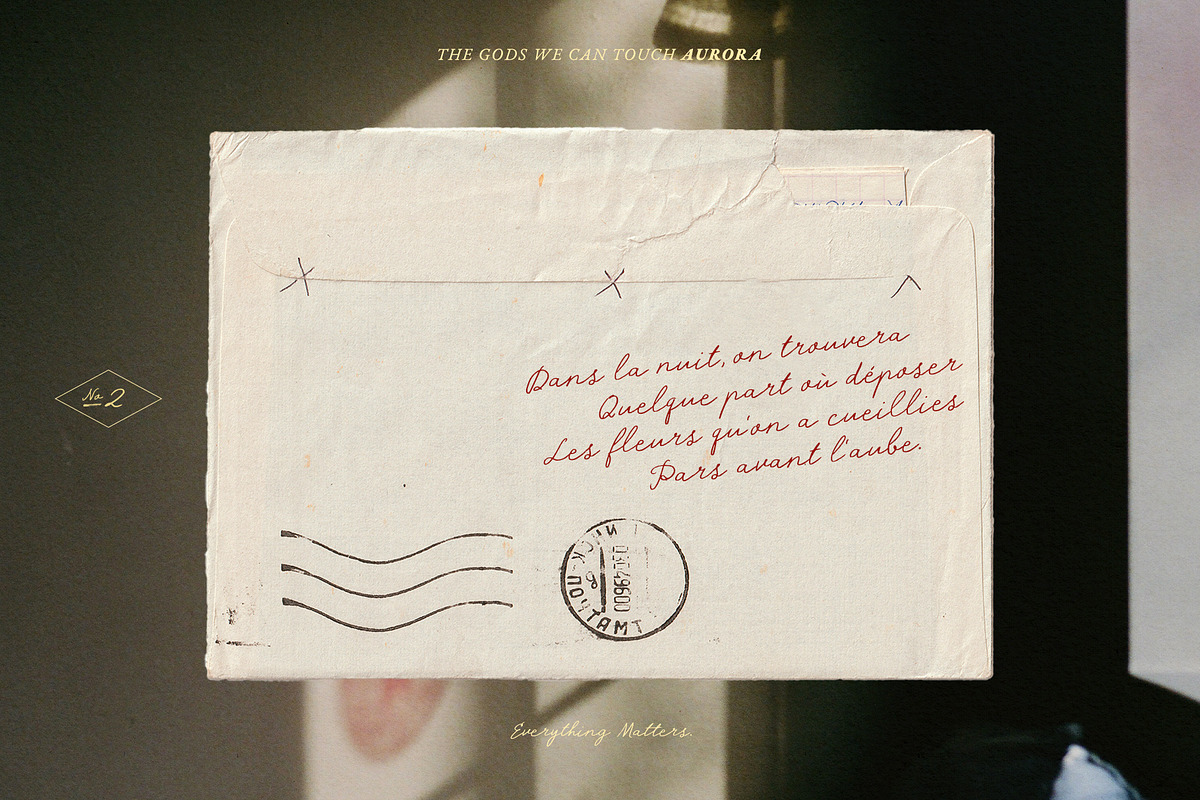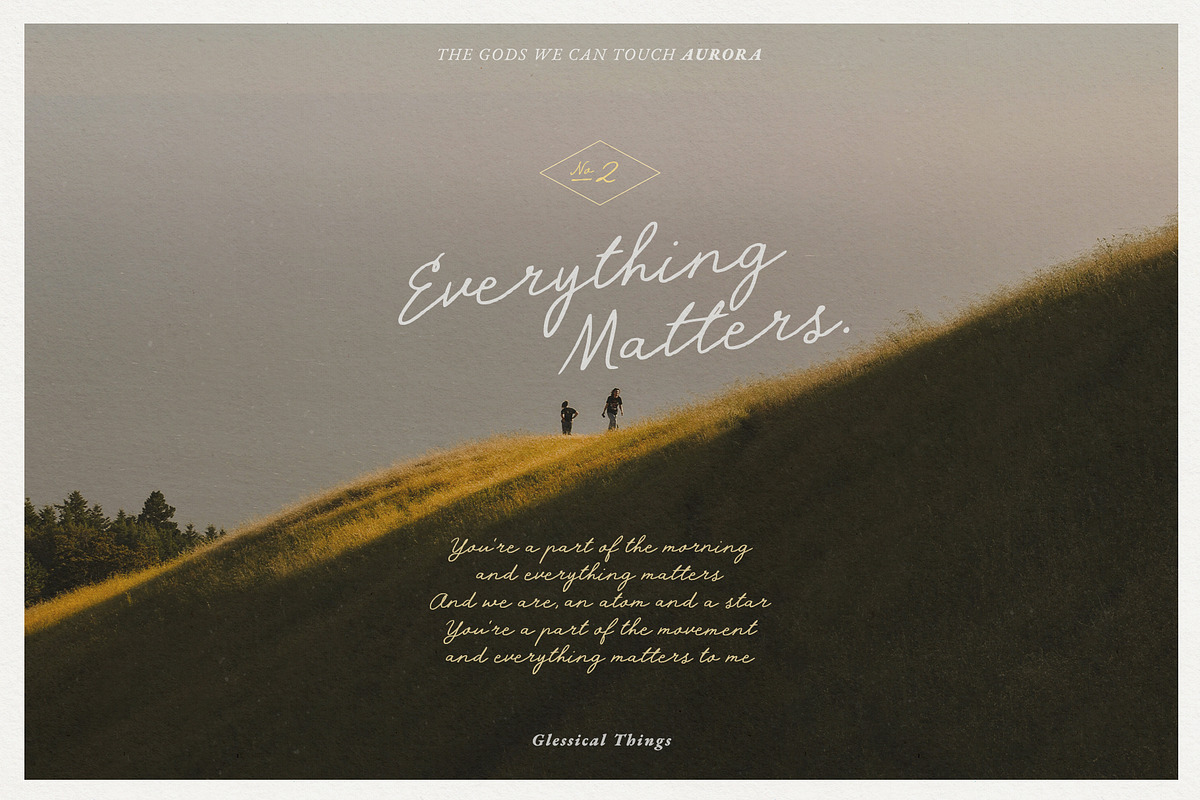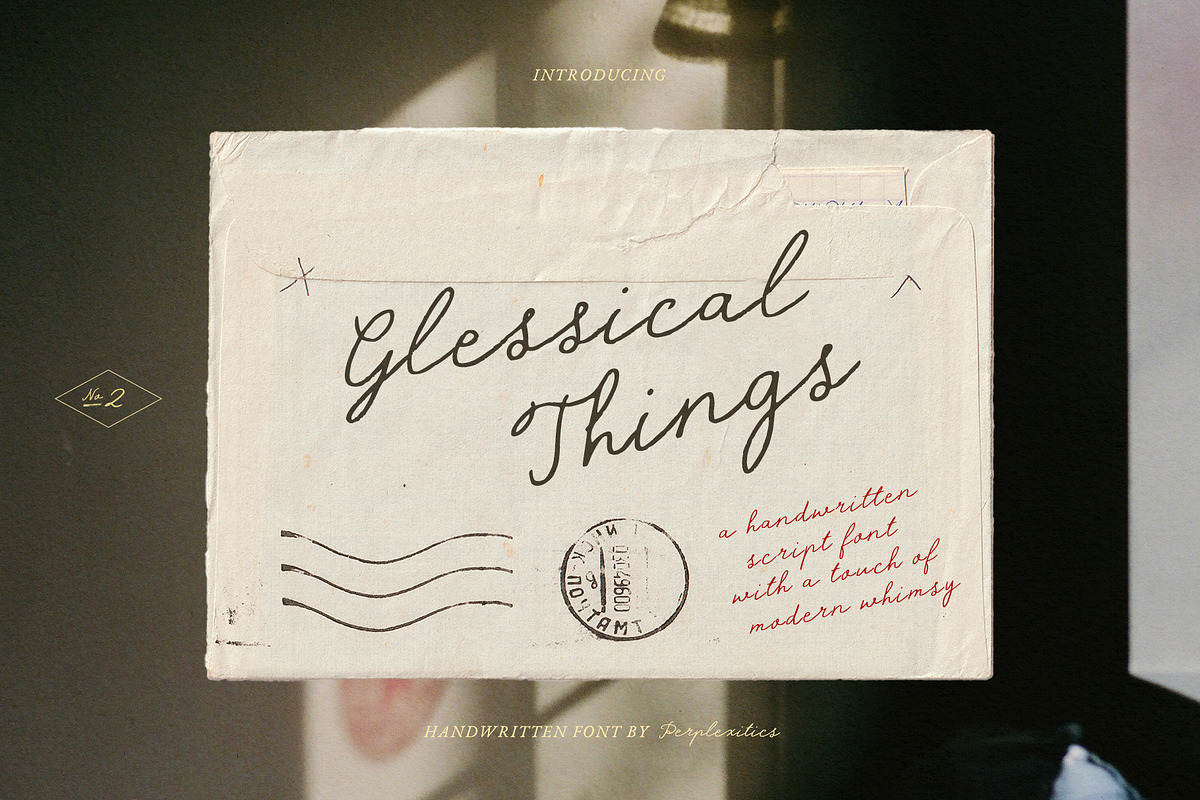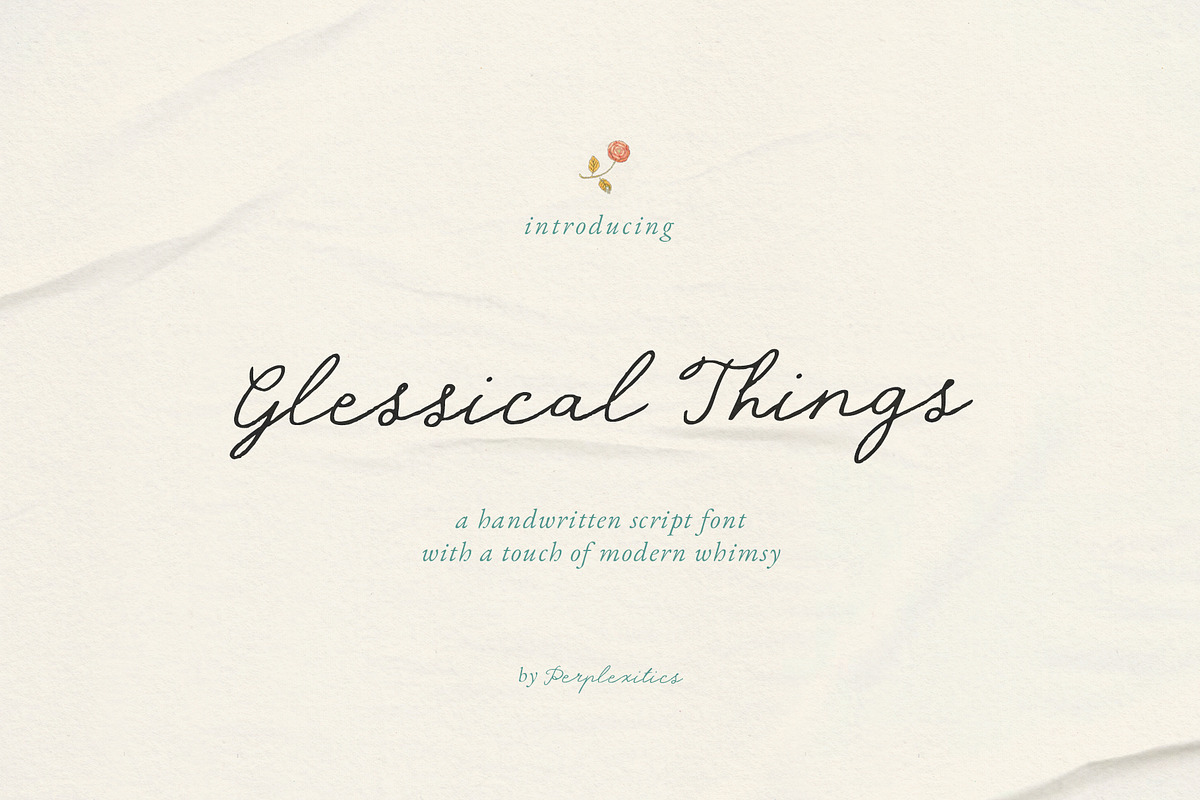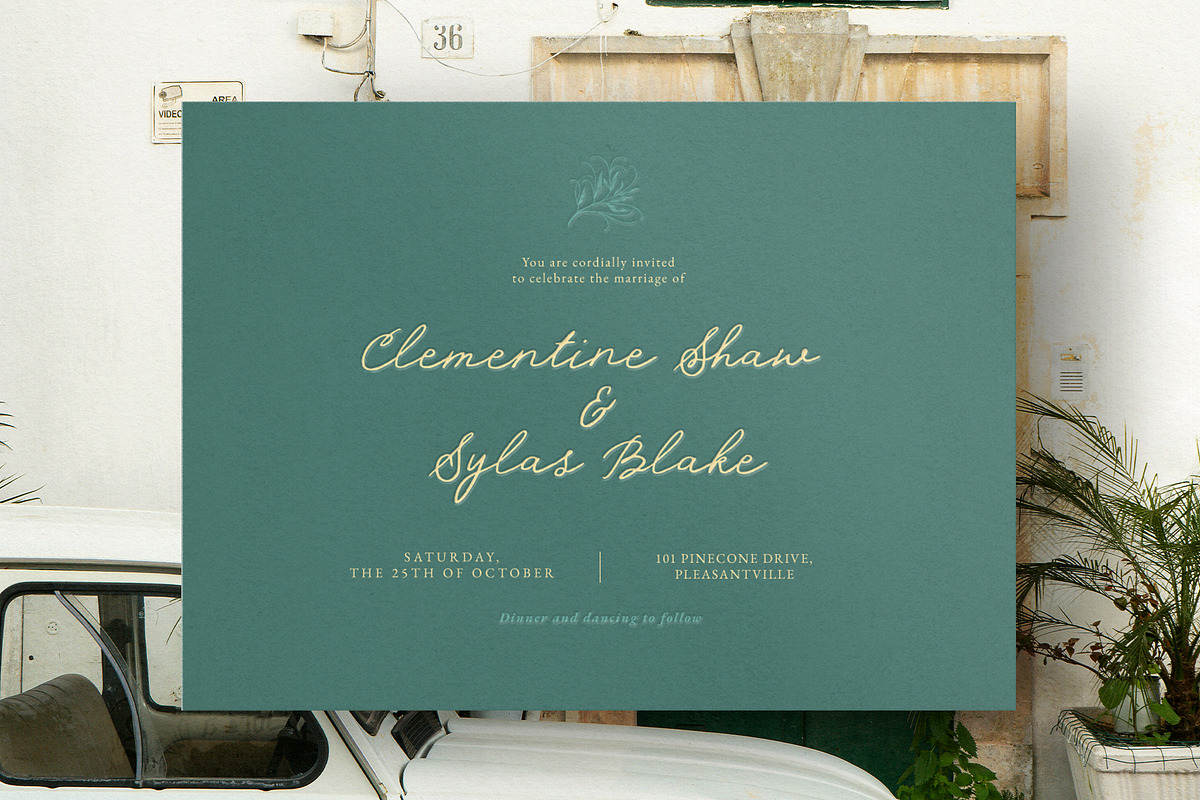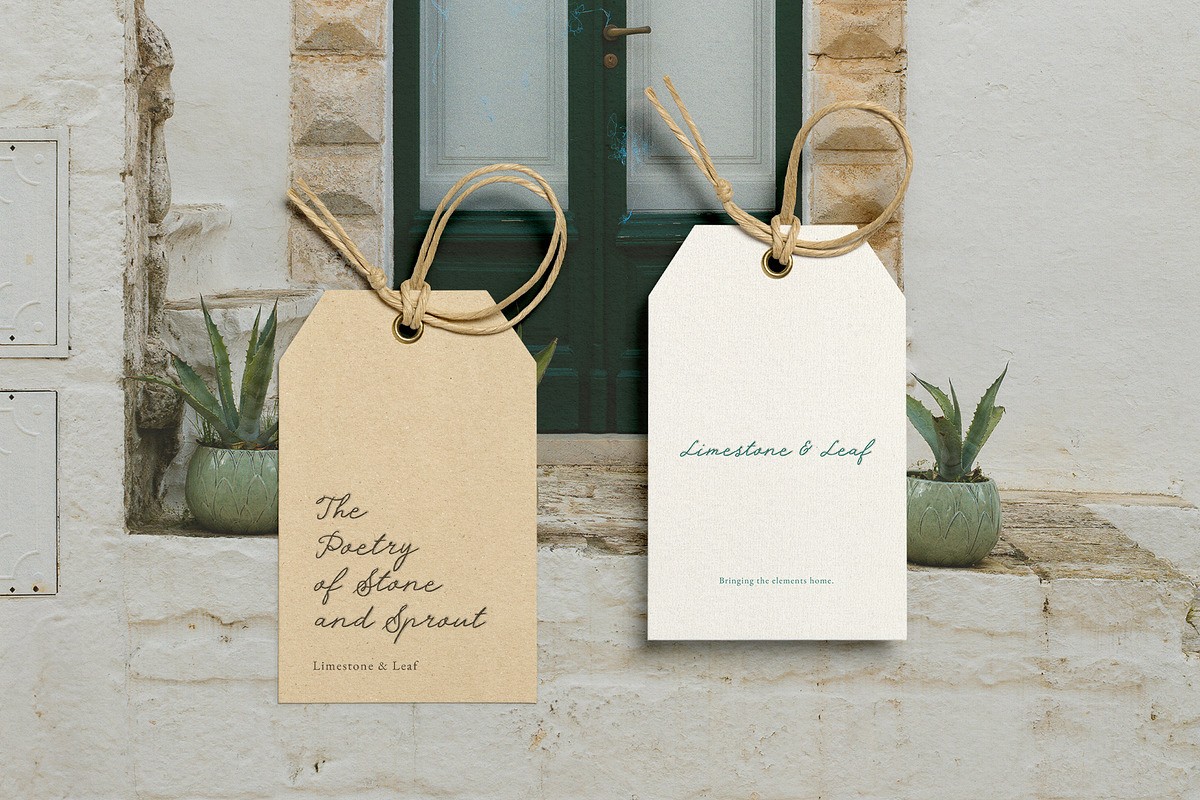
Glessical Things Handwritten Script
Glessical Things is a handwritten script font with a touch of modern whimsy. Each character possesses a unique, hand-drawn quality. Glessical Things Font is packed with everything you need, including uppercase and lowercase letters, numbers, punctuation, and ligatures. Multilingual support.